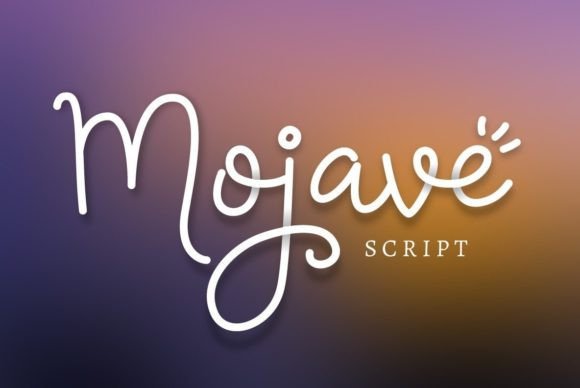
Embrace the elegance of Mojave Font, a calligraphy script that captivates with its delicate strokes and graceful curves. Designed by the talented Denise Chandler, Mojave Font is not just a collection of letters; it's an art form that transforms your words into exquisite masterpieces.
Indulge in the romance and charm of this font, perfect for capturing the essence of love and celebration. Its sweeping lines and intricate details evoke a sense of nostalgia and timeless beauty, making it an ideal choice for wedding signage, invitations, and greeting cards. Extend its charm to your creative projects, whether it's designing posters, flyers, or branding materials. Mojave Font will elevate your designs with its undeniable sophistication.
With its versatility, Mojave Font transcends the boundaries of traditional calligraphy. Its elegant flow brings a touch of whimsy to logos, making them stand out with a unique personality. Embrace its playful nature for social media posts, captivating your audience with visually stunning graphics. Create eye-catching headers and subheadings that demand attention and leave a lasting impression.
Mojave Font is more than just a font; it's a reflection of your personal style and creativity. Its ability to evoke emotions and create a lasting impact makes it the perfect choice for those seeking a touch of magic in their designs. As you explore the endless possibilities of this font, you'll discover a world of beauty and inspiration waiting to be unveiled.
Step into the world of Mojave Font and let your imagination soar. Experience the joy of creating designs that resonate with your audience, leaving them captivated by your artistry. With its timeless charm and versatility, Mojave Font is your gateway to a world of creative possibilities.